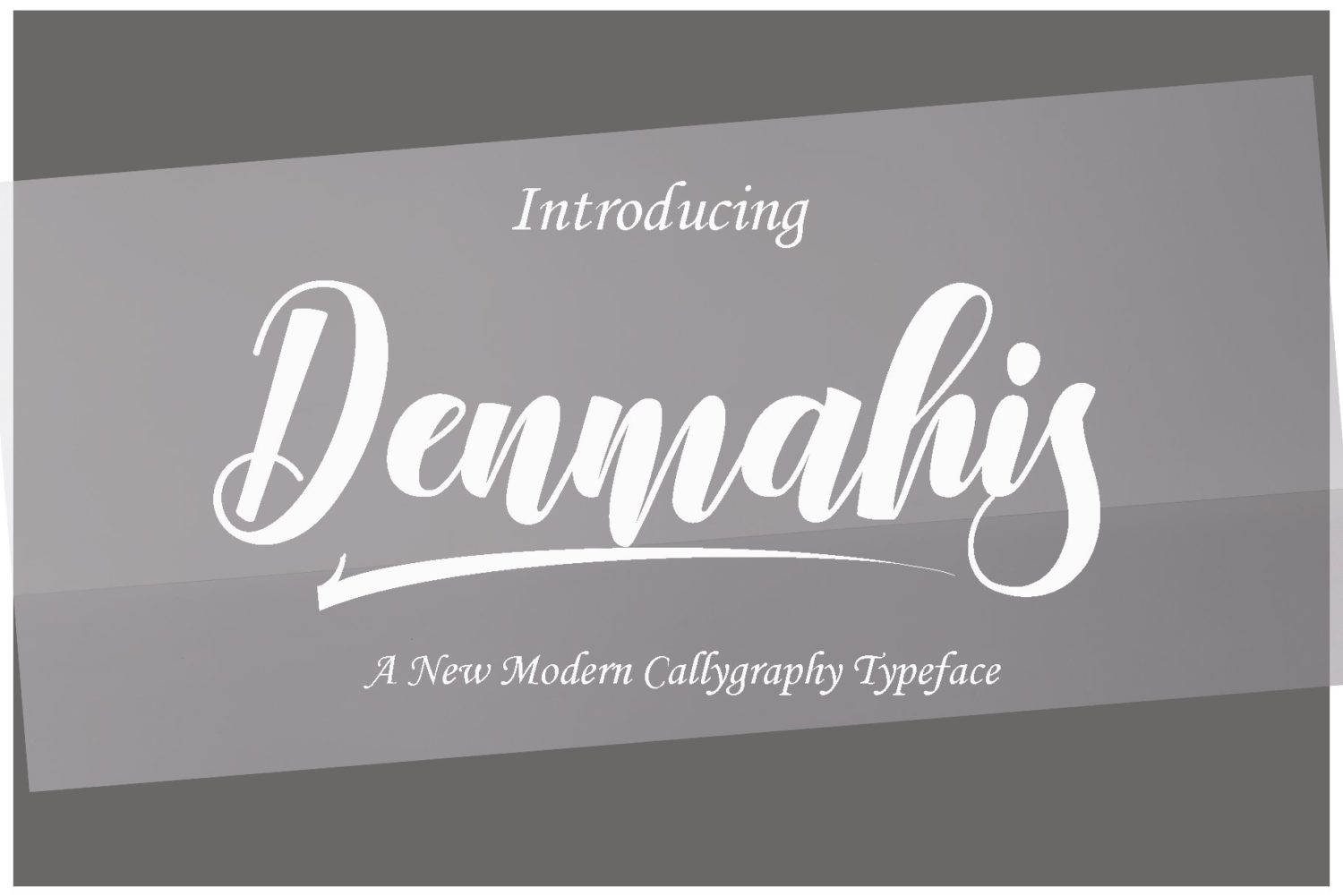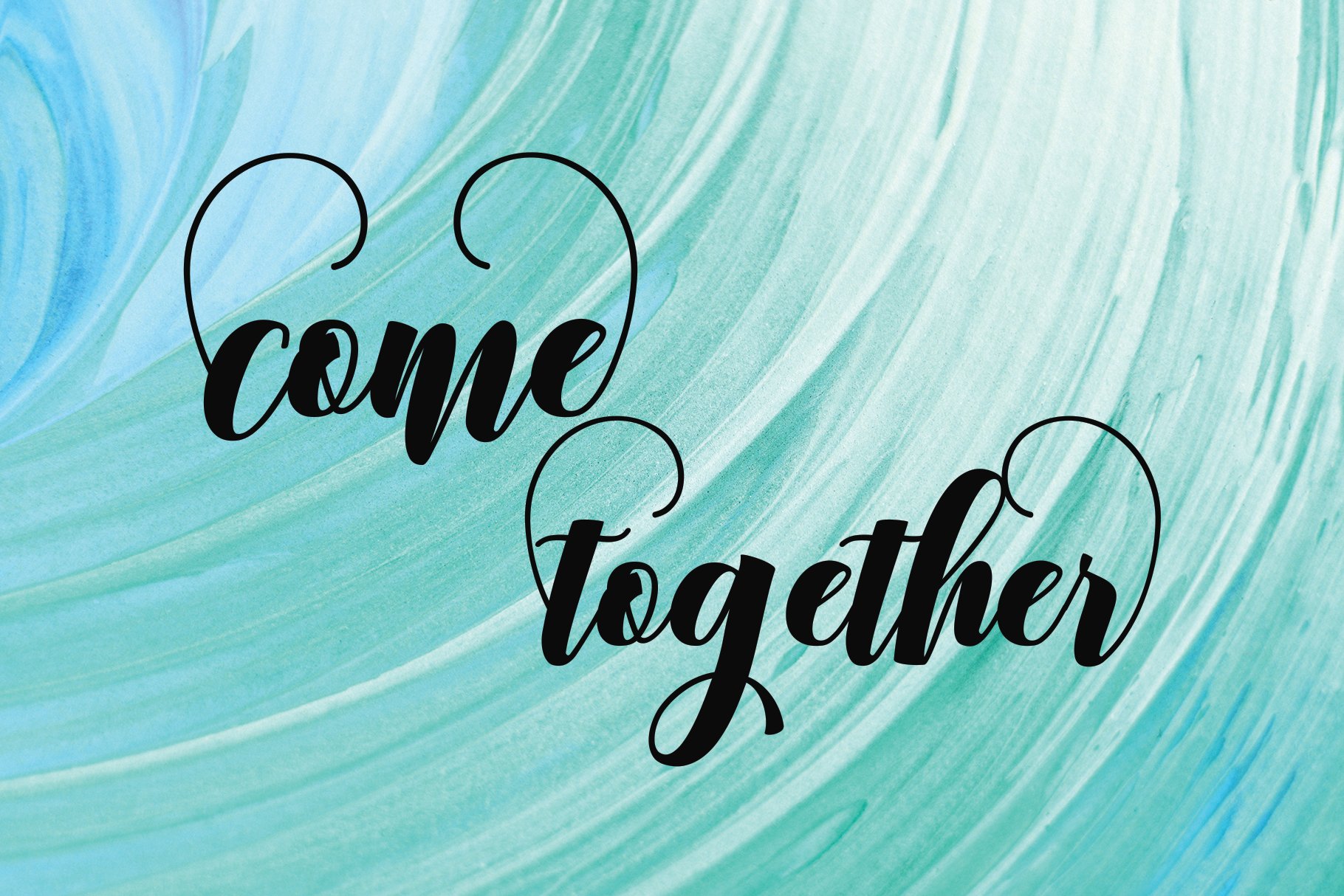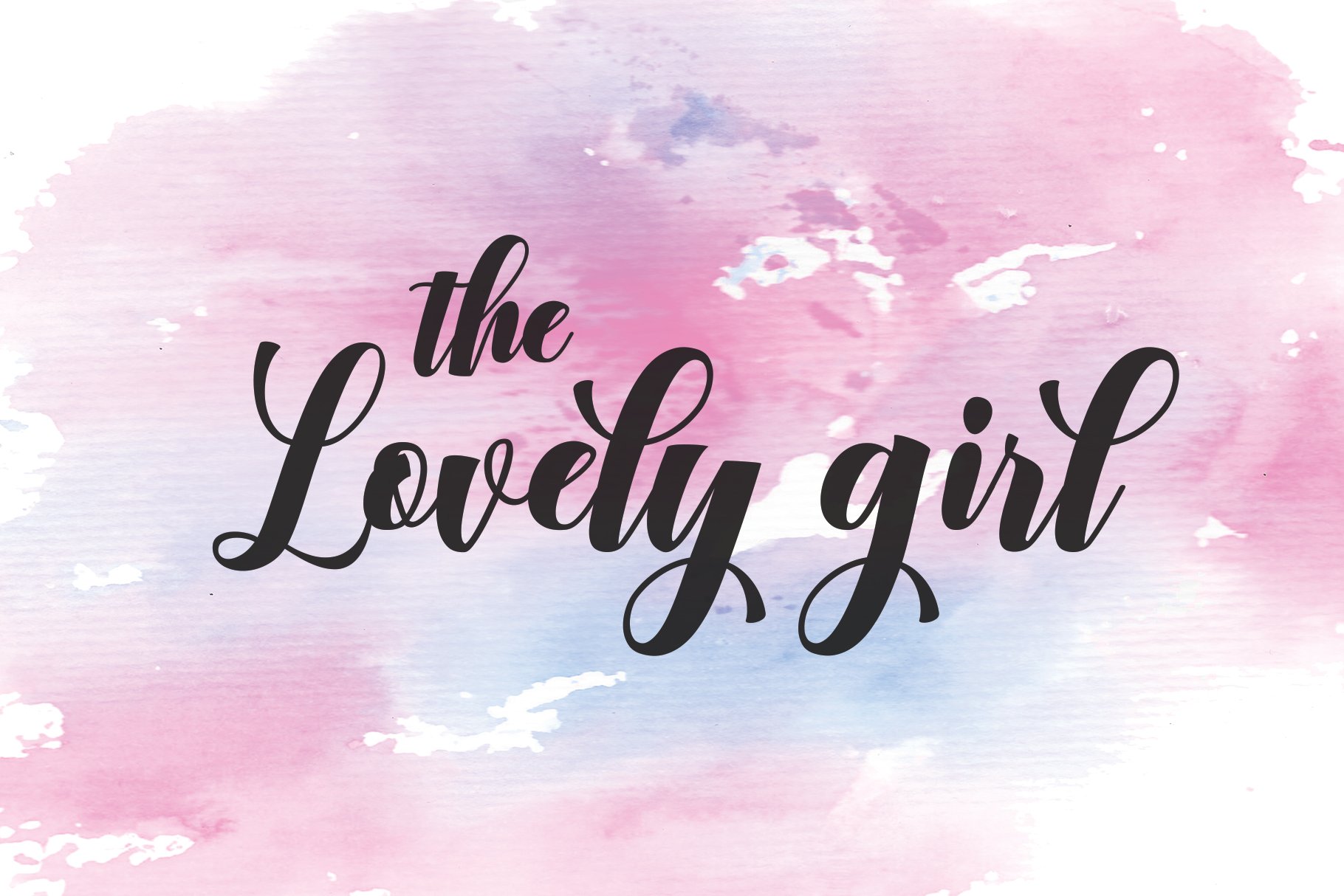
Denmahis Script Free Demo
Denmahis script free demo is the latest Modern Calligraphy font by Joee Creative. This font was designed by handwriting, and it has modern and unique forms of calligraphy, the writing style is very natural. Can be used for various purposes. Such as title, signature, logo, wedding invitation, t-shirt, letterhead, nameplate, label, news, poster, badge, etc.